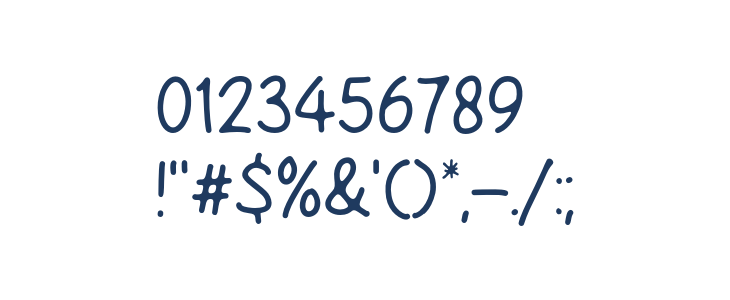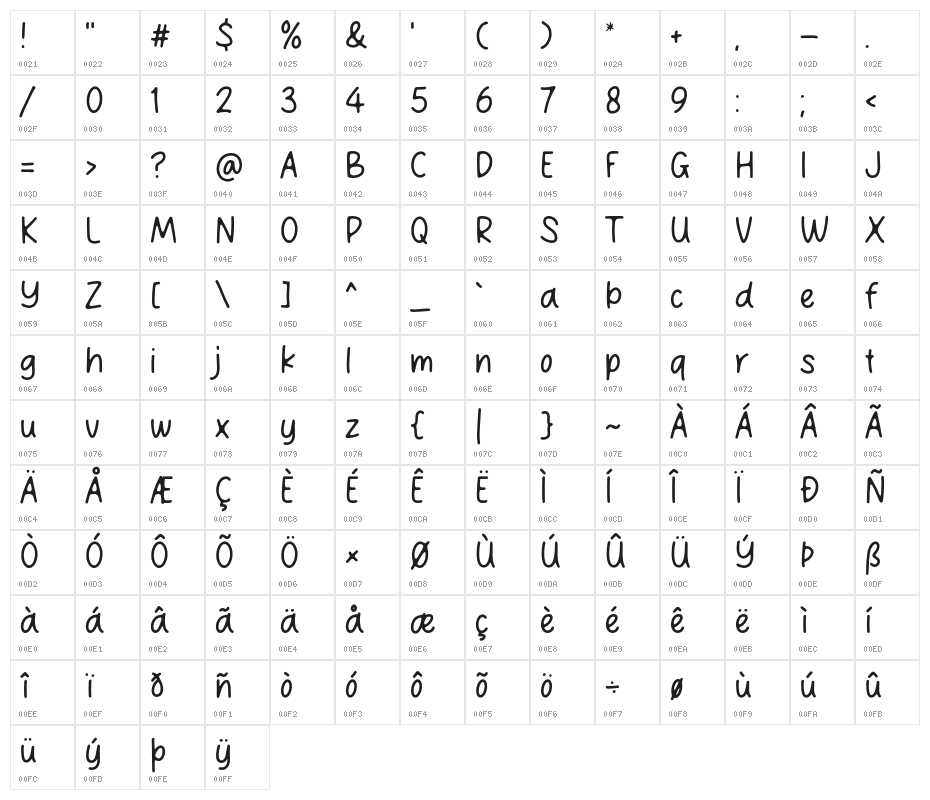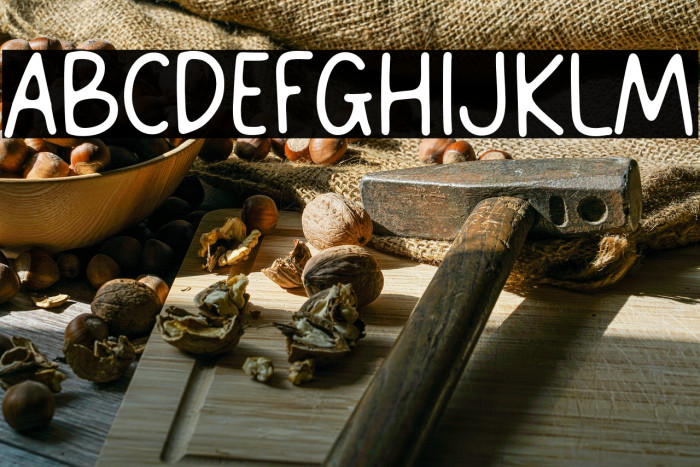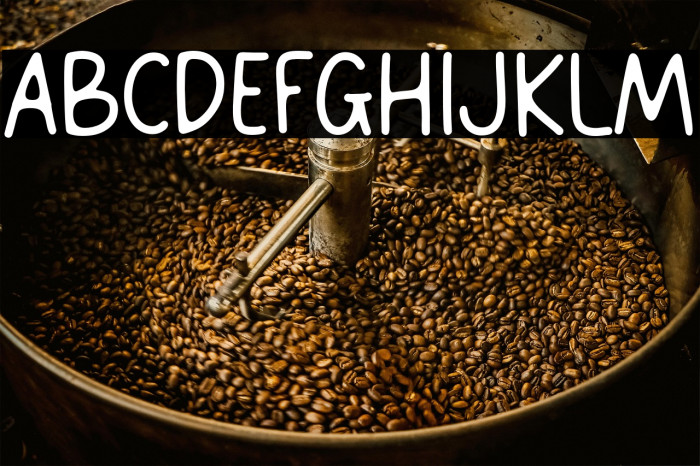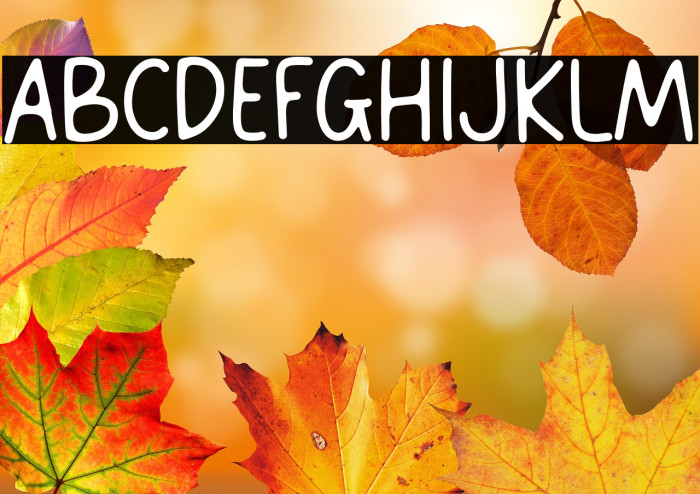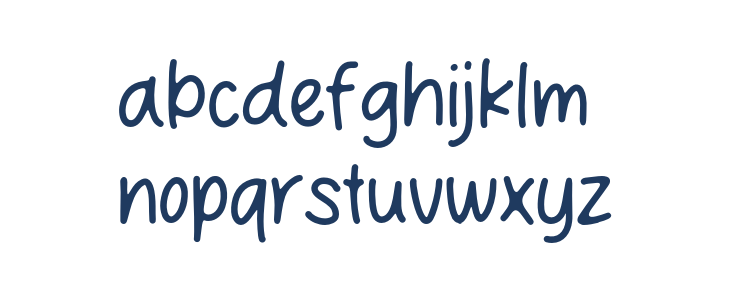
Aesthetic Rainbow Font
Aesthetic Rainbow Description
This font features a playful and casual handwritten style, characterized by its smooth and rounded letterforms. The strokes are consistent in thickness, providing a uniform appearance that enhances readability. The letters have a slightly irregular baseline, adding to the informal and friendly vibe. The font includes a full set of uppercase and lowercase letters, numerals, and a variety of special characters, making it versatile for different uses. Its approachable and relaxed aesthetic makes it suitable for creative and informal projects.